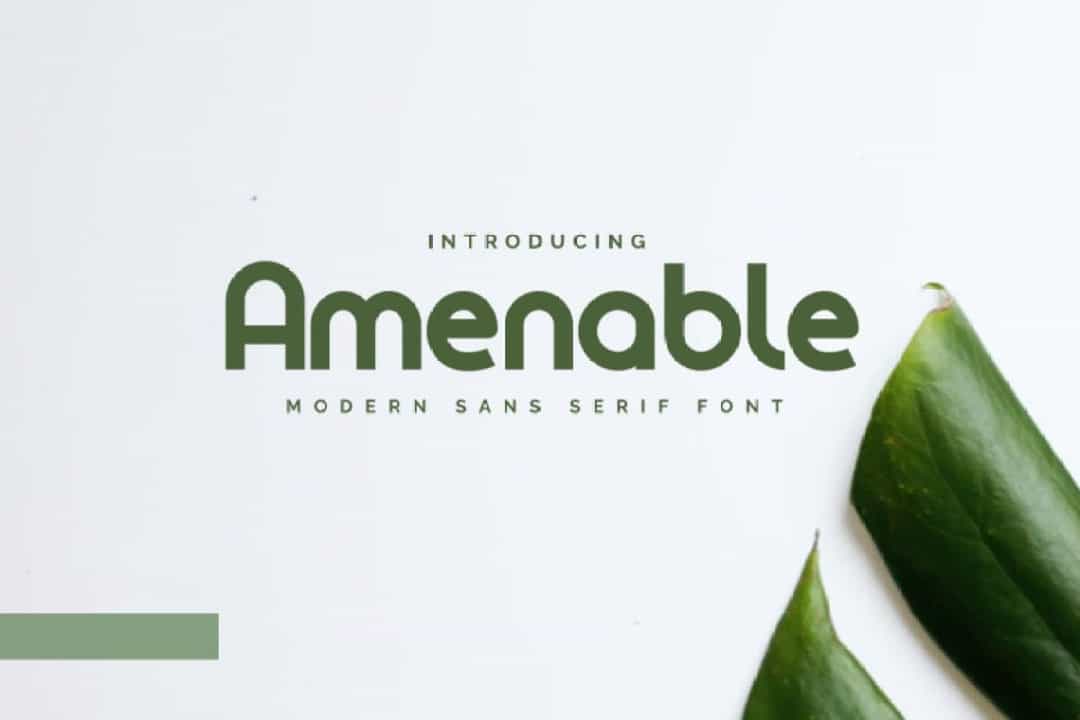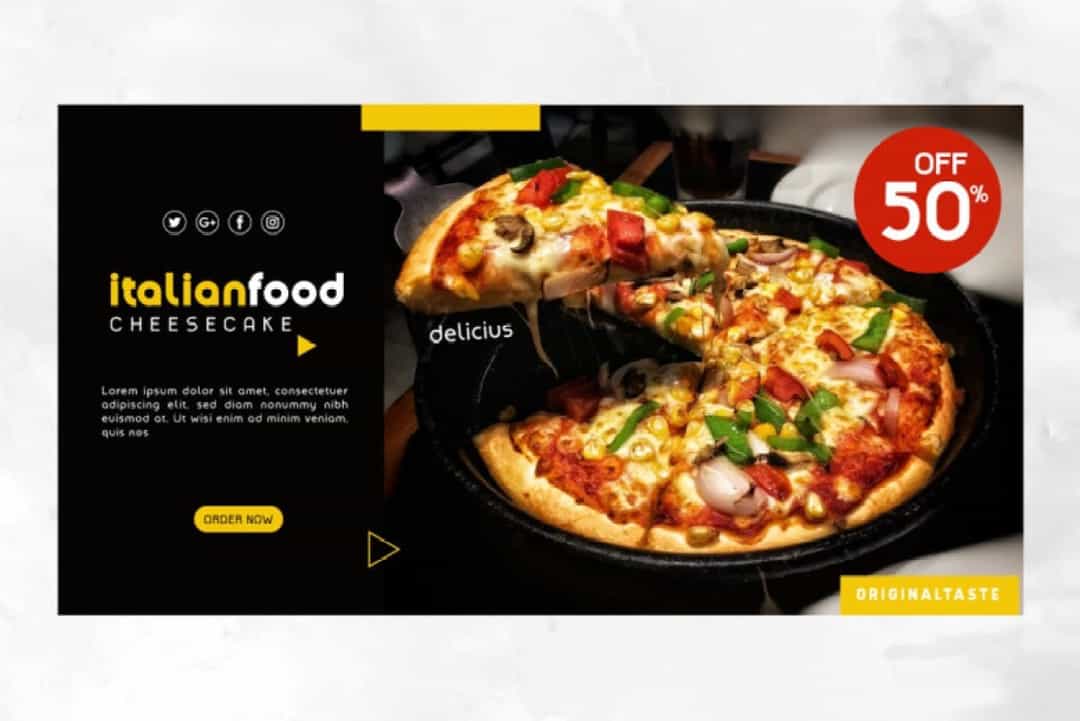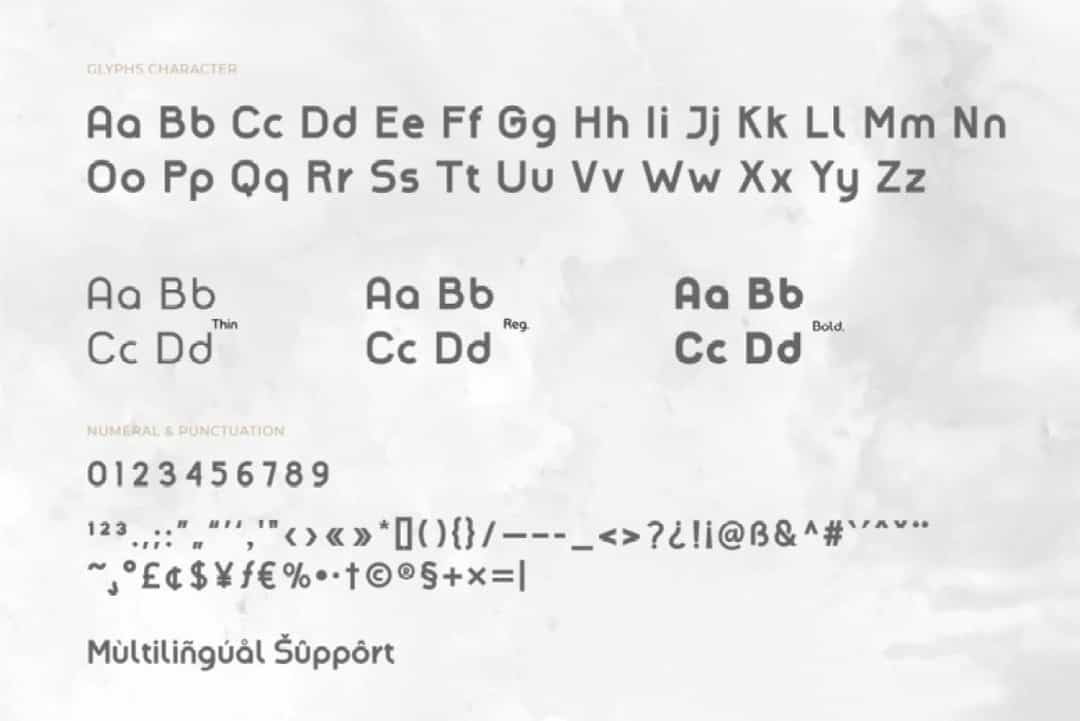
Amenable Sans Serif Font. Our latest font that has been designed with special focus on intricate geometric patterns and the angle at which the eyes read text that is written using this font to ensure that the beauty of every word is well retained. This font is beautiful, and has been designed to be easy on the eye and make reading a pleasure – use this font for elegance.